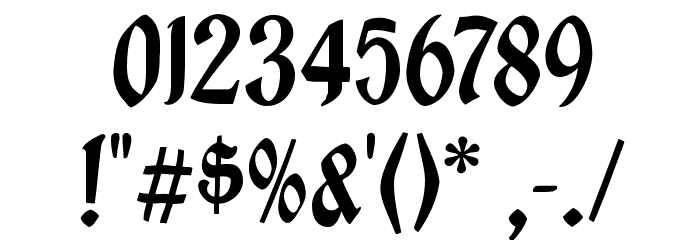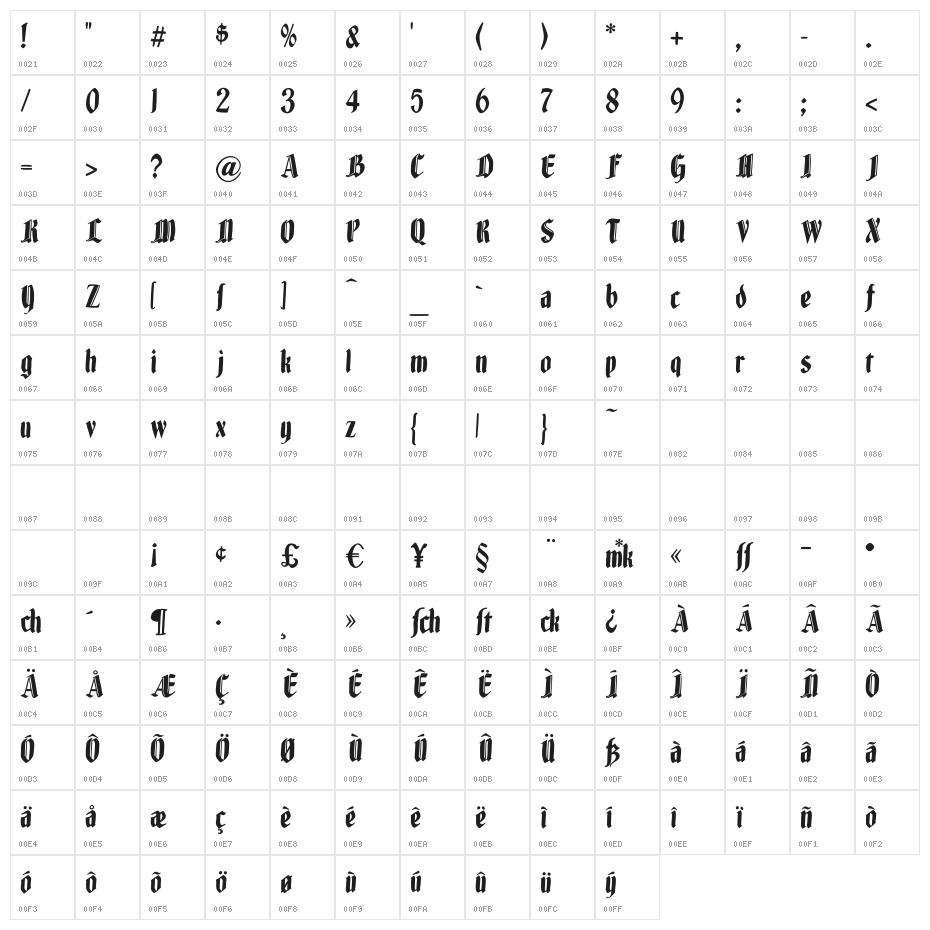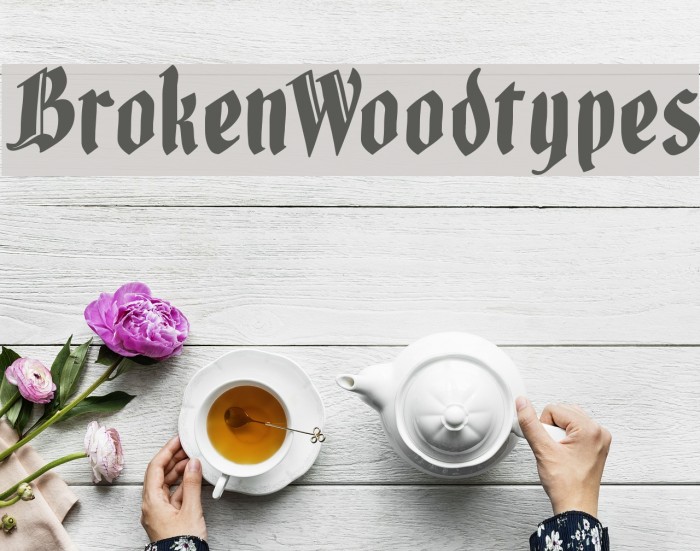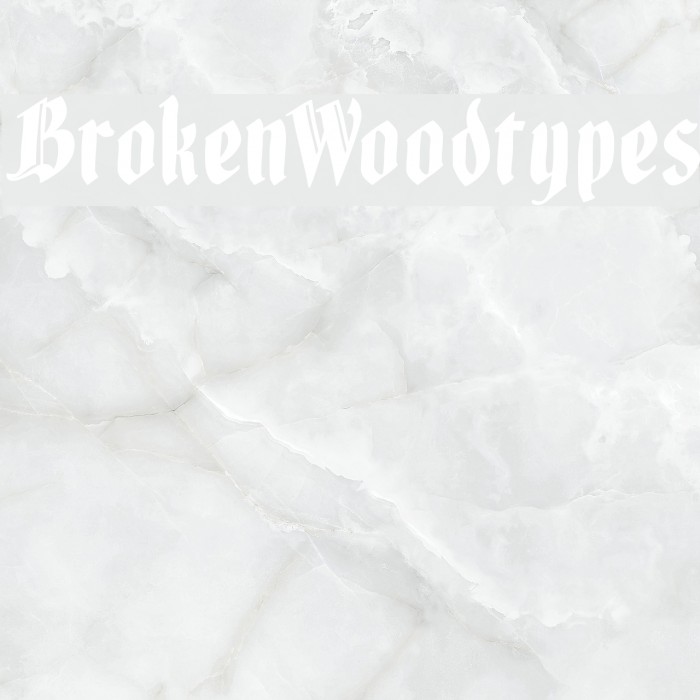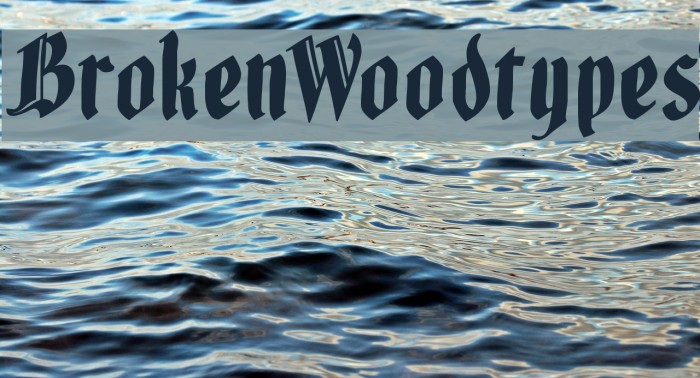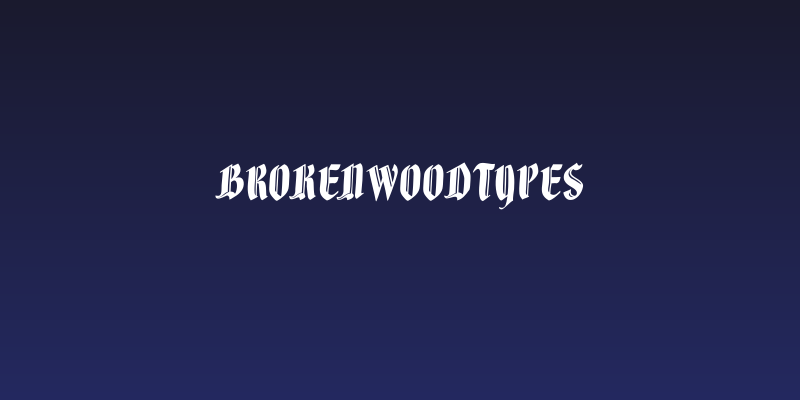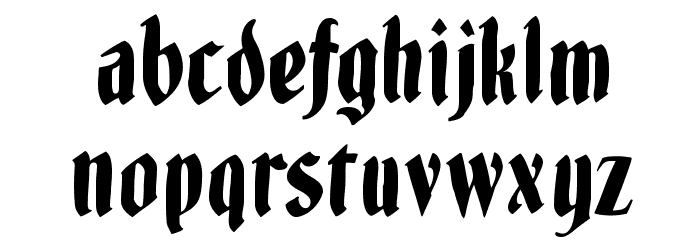
BrokenWoodtypes Font
BrokenWoodtypes Description
This font exhibits a bold and dramatic style, reminiscent of traditional blackletter typefaces. The characters are characterized by sharp, angular lines and a distinct medieval flair. The uppercase letters are particularly striking, with exaggerated serifs and a sense of grandeur. The lowercase letters maintain a consistent style, offering a cohesive look across the alphabet. Numbers and special characters are designed to match the overall aesthetic, making this font suitable for projects that require a historical or gothic touch.
| Use Case | Headlines, Logos, Decorative text |
| Proposed Projects | Ideal for historical documents, gothic-themed designs, book covers, and branding that requires a dramatic and traditional touch. |